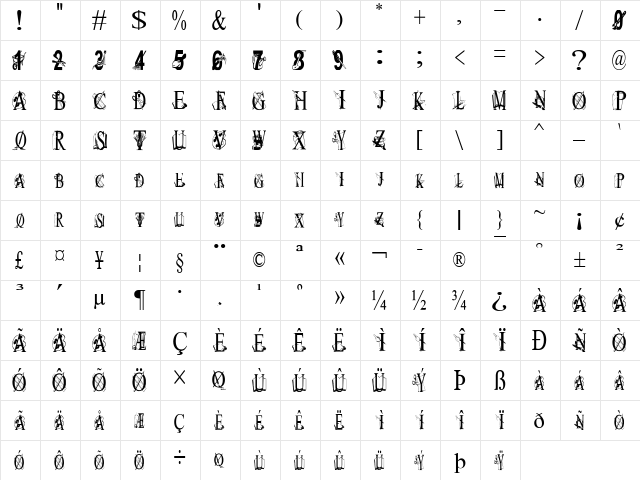
TungFont Art Font Regular Font Preview
TungFont Art Font Regular
TungFont Art Font Regular Font Details
Design Context for TungFont Art Font Typeface
TungFont Art Font is a composed and adaptable typeface that performs quietly and consistently across a wide range of design contexts.